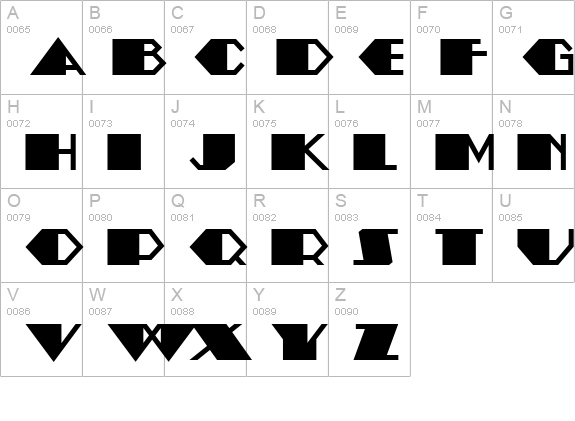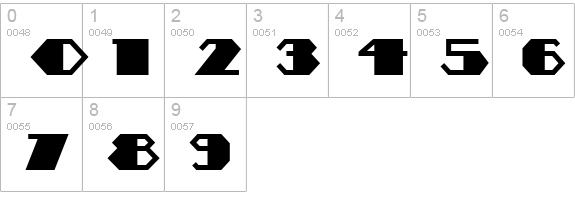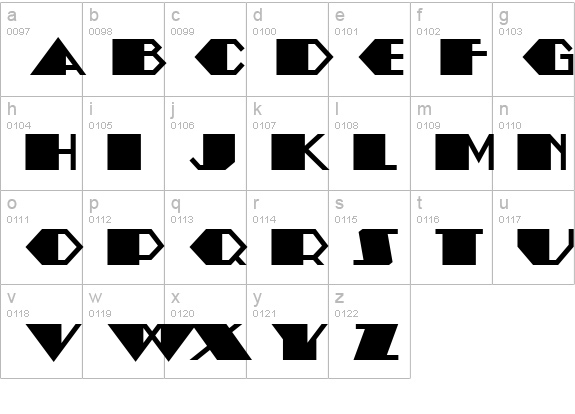
AmstelHeavyNF Font Details
AmstelHeavyNF is a bold and striking font that exudes strength and confidence. Its thick and powerful letterforms make a bold statement in any design project. This versatile typeface is perfect for headlines, logos, posters, and other creative endeavors where you want to command attention. The best part about AmstelHeavyNF is that it is free to download! You can easily access this impressive font at FontsMarket.com without any cost. Whether you're a graphic designer, artist, or hobbyist, AmstelHeavyNF is a valuable addition to your font collection. Download it today and unleash its bold personality in your next project.